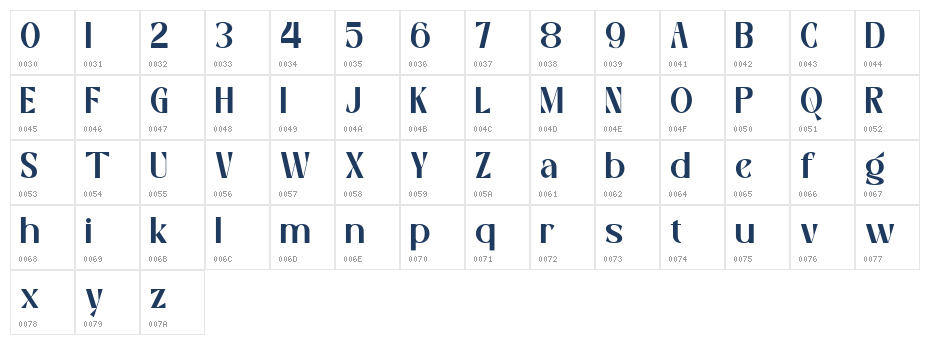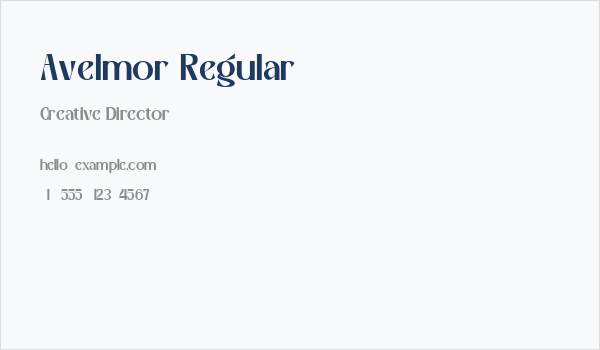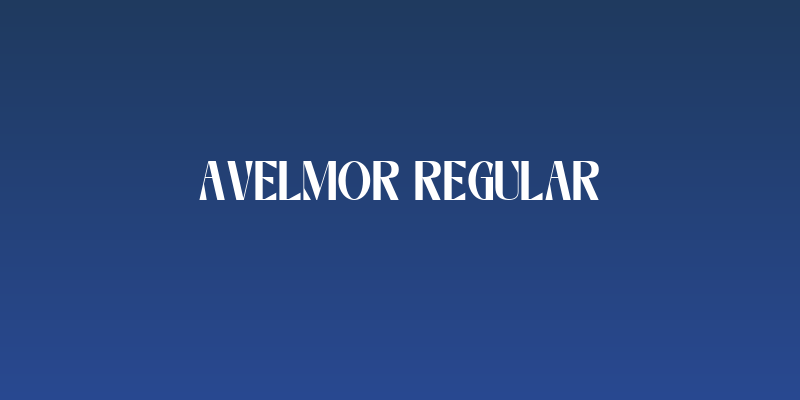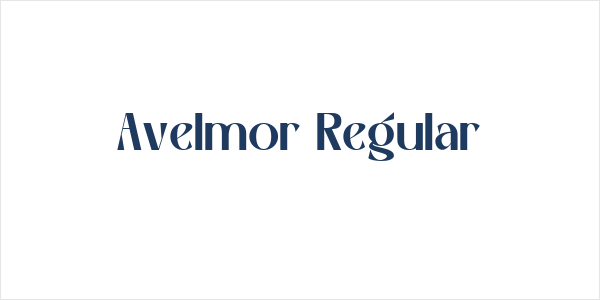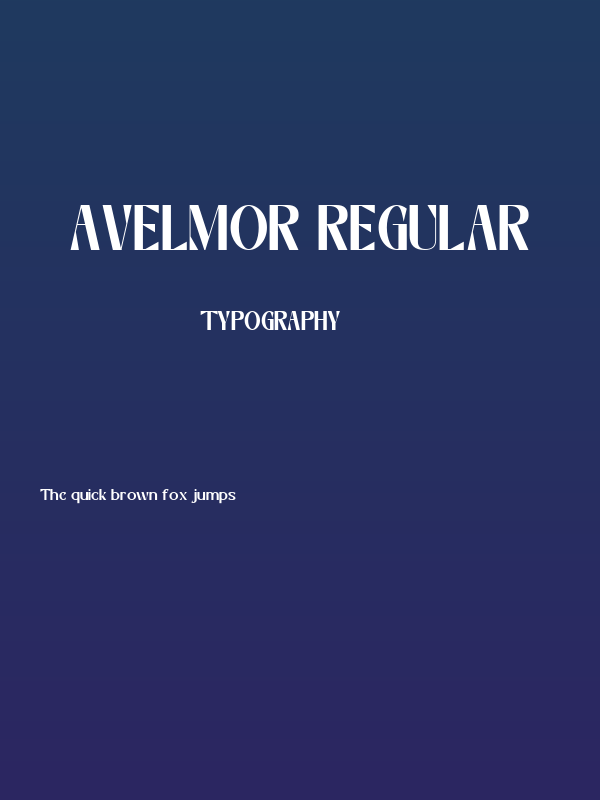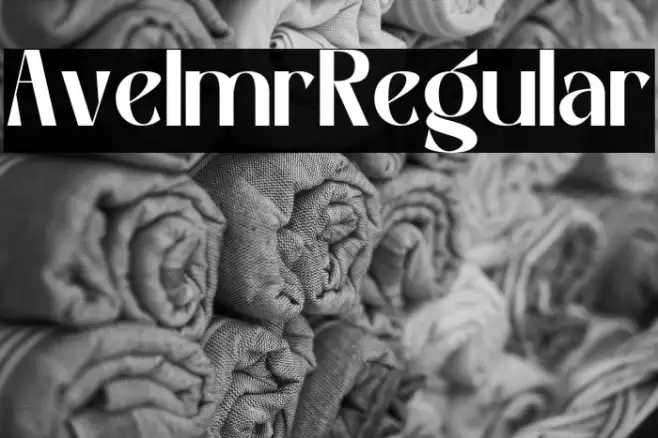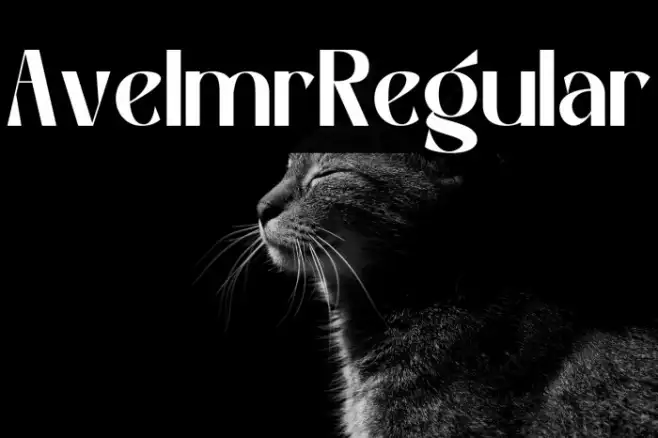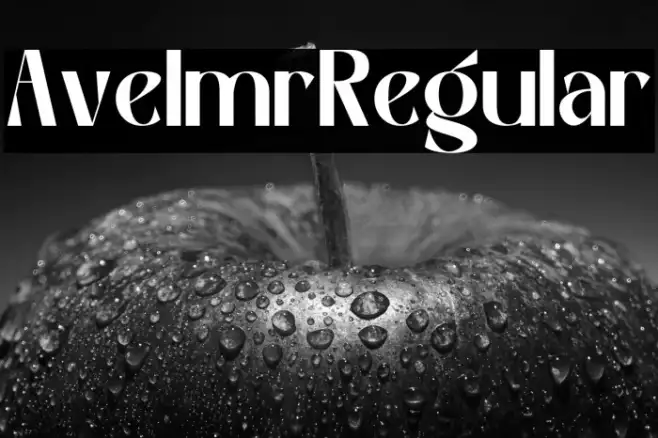
Avelmor Regular Font
Avelmor Regular Description
A bold, serif typeface with high contrast and a modern, elegant style. The uppercase letters are prominent with distinctive thick and thin strokes, while the lowercase letters are more rounded with a similar high-contrast design. The numerals are also bold and stylized, matching the overall aesthetic.
| Overall Style | Modern, Elegant, Sophisticated |
| Use Case | Headlines, Logos, Editorial Titles |